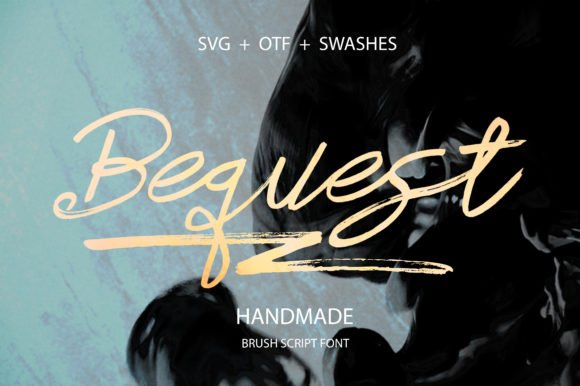
Discovering the Perfect Handwritten Touch
Have you ever been brainstorming a creative idea, pouring your heart and soul into it, and then suddenly, you’re stuck on how to present it in a way that truly captures its essence? You start searching for the perfect font, one that adds a personal touch, conveys emotion, and makes your design stand out. This is where the magic of typography comes in, and I’m excited to introduce you to a game-changer – Bequest Font.
Bequest Font is a beautifully crafted handwritten font that adds an air of authenticity to any design project. Its unique characteristics make it an invaluable tool for designers who want to add a personal touch to their work. Whether you’re working on a branding project, creating a social media campaign, or designing a book cover, Bequest Font can elevate your design and make it truly special.
As a designer, you understand the importance of selecting the right font to convey your message. With Bequest Font, you can rest assured that your design will have a unique and distinctive look that sets it apart from the crowd.
Bequest Font Key Features
- Font Family: Bequest is a high-end, elegant script font designed for luxurious and sophisticated designs.
- Size: The font family includes 4 styles: Bequest, Bequest Script Italic, and Bequest Script Bold, each with its unique characteristics.
- Unique Characteristics: Bequest features elegant, flowing connections and subtle flair, making it perfect for invitations, wedding stationery, and luxury branding.
- Language Support: Supports a wide range of languages, including Latin, Greek, and Cyrillic scripts, making it a versatile choice for global designs.
Review of Bequest Font
I’ve had the chance to work with Bequest Font, and I’m sharing my honest thoughts with you.
- Craftsmanship – The Bequest Font is a beautifully crafted font that exudes elegance and sophistication. The attention to detail is impressive, making it perfect for high-end branding.
- Uniqueness – This font has a distinct personality that sets it apart from more common fonts. It’s perfect for designers who want to create a unique visual identity.
- Readability – Bequest Font is highly legible, making it suitable for a wide range of applications, from body text to headlines.
- Limited versatility – While Bequest Font is perfect for high-end branding, it might not be the best choice for more casual or playful designs.
- Not ideal for small text – The font’s elegant design makes it less suitable for small text sizes, where it might become difficult to read.
Overall, I think Bequest Font is a great addition to any designer’s toolkit. While it might not be suitable for every project, it’s perfect for those who want to create a sophisticated and elegant visual identity.
Some tips for getting the most out of Bequest Font include:
- Pairing it with elegant and sophisticated graphics and imagery.
- Using it for titles and headings to add a touch of luxury and sophistication.
- Experimenting with different font
Alternatives to Bequest Font
Playfair Display is a luxurious and elegant serif font, ideal for high-end branding, invitations, and luxury packaging. It features intricate details and ornaments, making it perfect for special occasions. Compared to Bequest Font, Playfair Display is more ornate and luxurious, while Bequest Font has a more subtle and vintage feel.
Didot is a classic serif font with a refined and sophisticated look. It’s suitable for high-end fashion, luxury goods, and upscale branding. Compared to Bequest Font, Didot is more geometric and precise, while Bequest Font has a more organic and vintage feel.